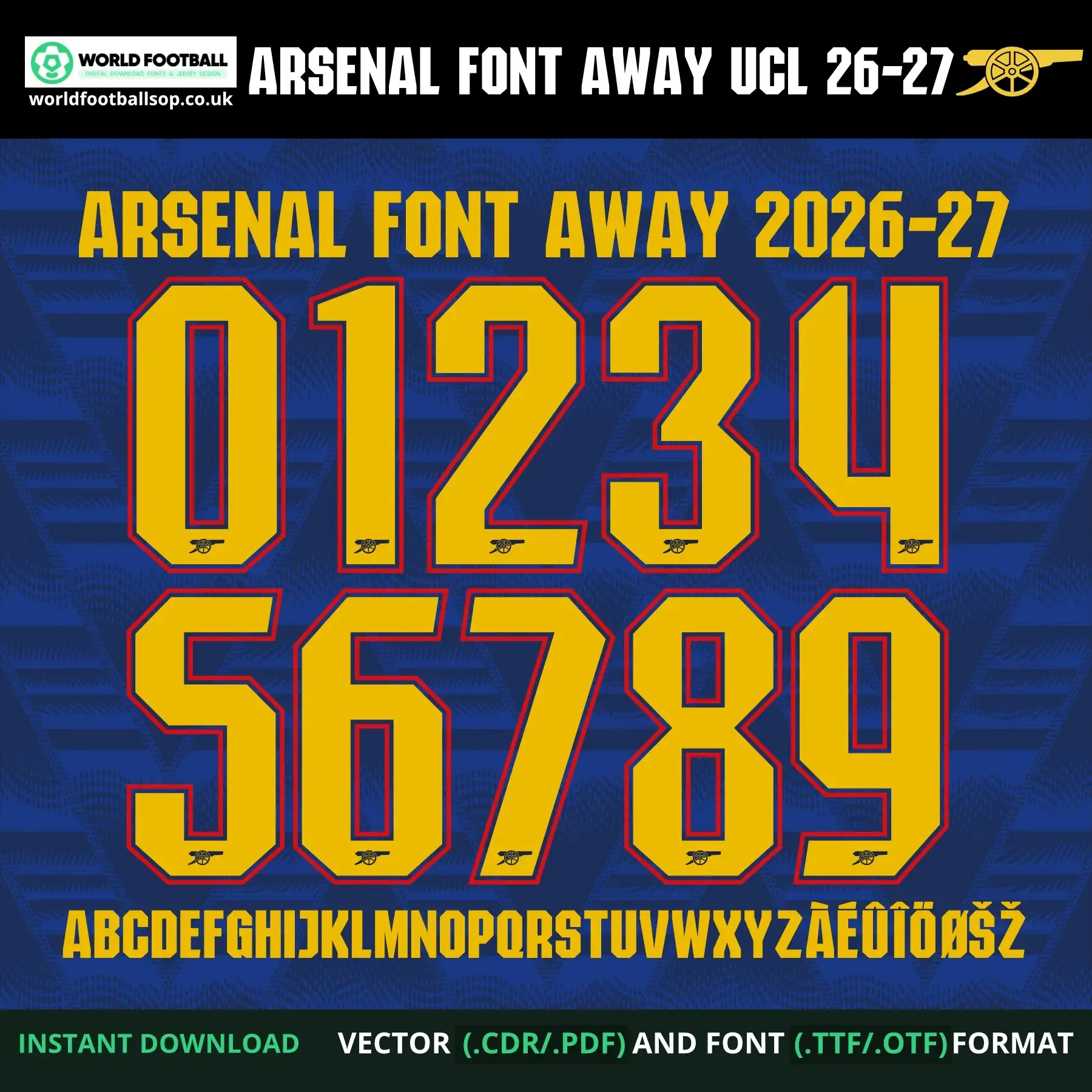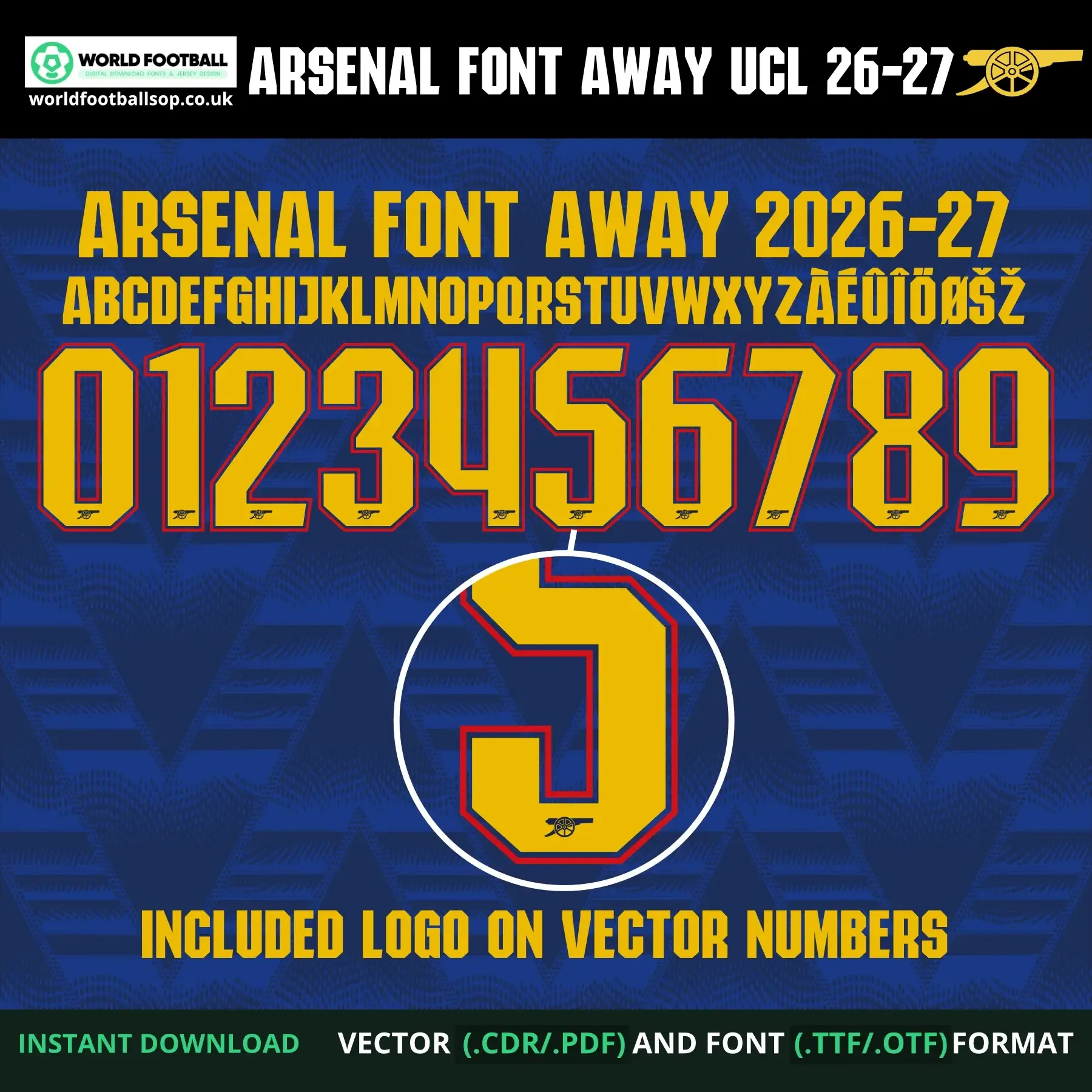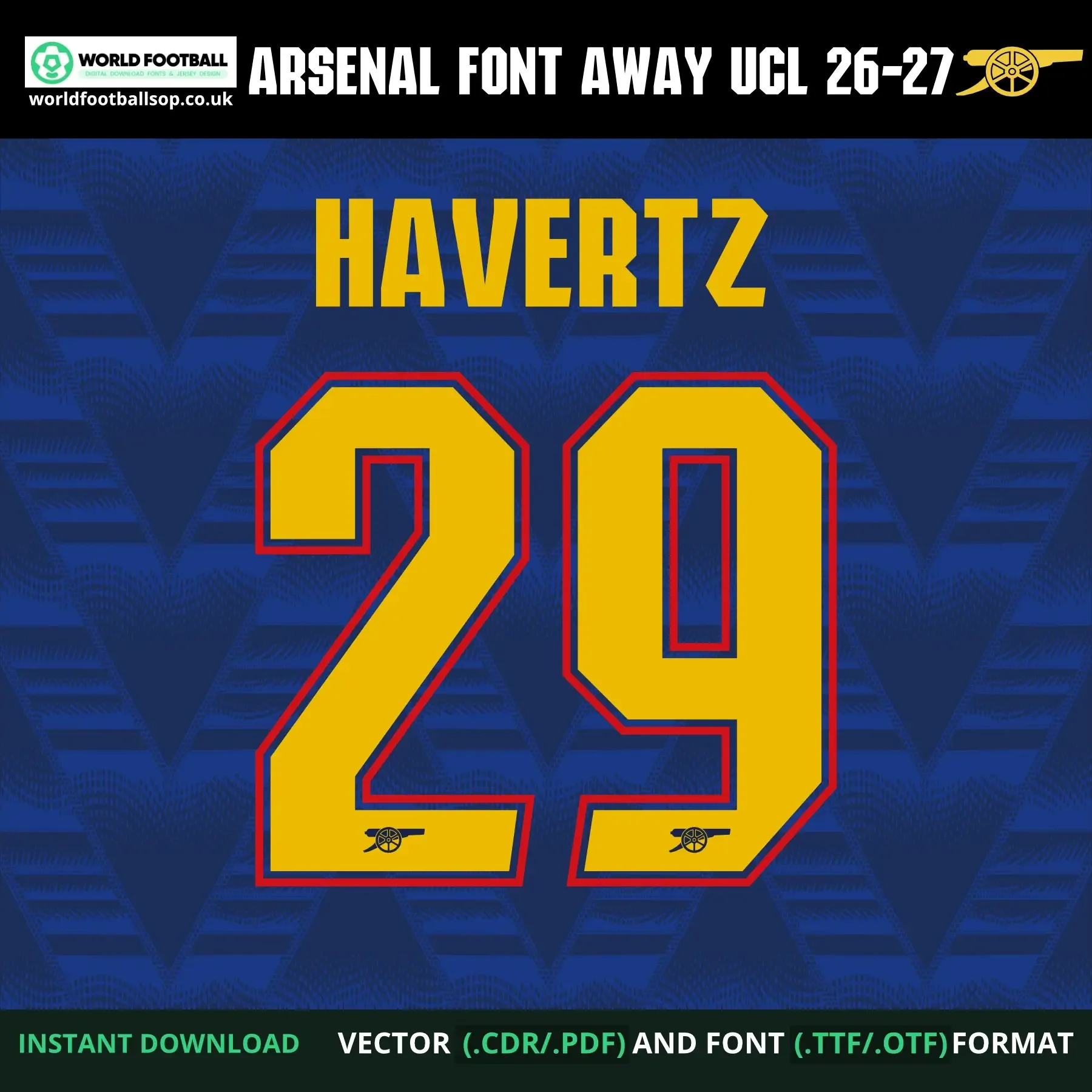
Arsenal Font Away UCL 2026-27 - Jersey Typography
This football font set takes inspiration from the bold, angular lettering seen on Arsenal's away kit for the 2026-27 Champions League season. Each character is built with a solid gold/yellow fill and a sharp red outline, set against a deep navy-blue background with a subtle dot-and-chevron texture - the kind of high-contrast look that reads clearly whether it's on a shirt mockup, a poster, or a small sleeve print.
The full character set A-Z alphabet and numbers 0-9, with the Arsenal cannon icon embedded at the base of every letter and number - is supplied as both desktop font files (TTF/OTF) and a complete vector pack (AI, CDR, EPS, PDF, SVG), so it works whether you're setting text quickly in a design app or need clean, editable outlines for cutting and printing. As a bonus, the numbers 0-9 are also included individually separated, with the logo, in SVG, PDF and PNG - ready to drop straight into Cricut, Silhouette, or any design app without extra editing. The preview layout shows the full character set alongside a sample name and number combination - HAVERTZ 29 - to demonstrate how the font looks applied.
- Accented characters: Γ, Γ, Γ, Ε , Ε½
- Bold, high-contrast gold-on-navy styling stays legible at large and small sizes